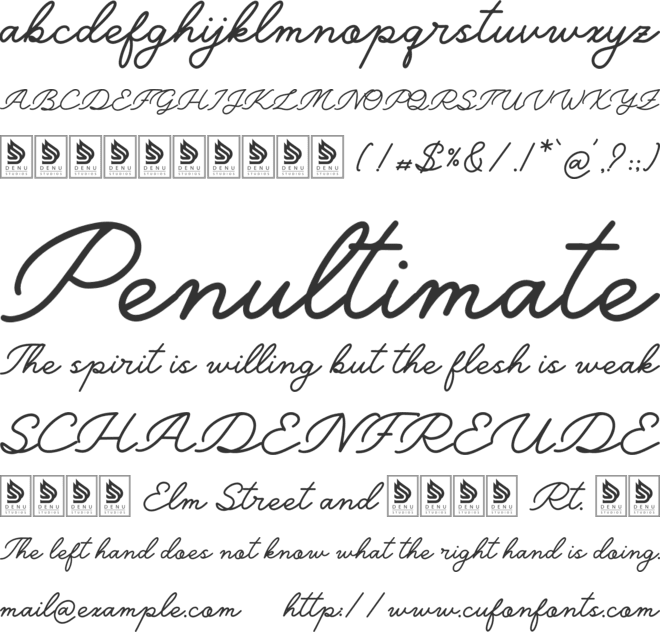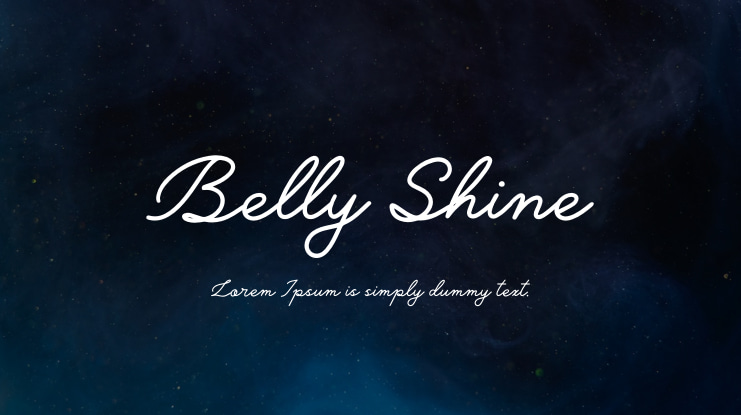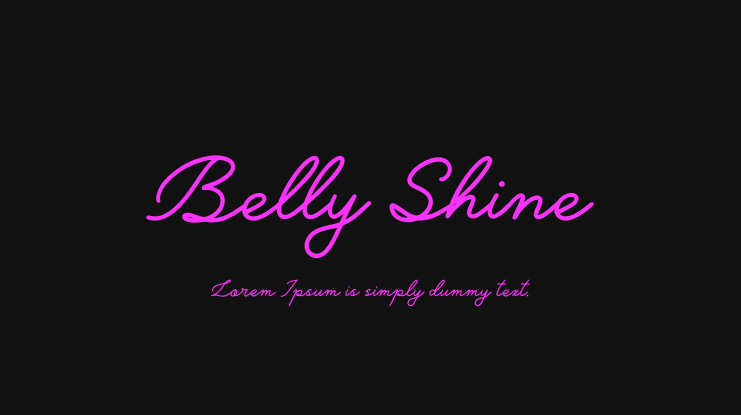
Belly Shine Font
Belly Shine | Handwritten Script Font is suitable for any projects such as:
• Logos
• Branding projects
• Homeware designs
• Product packaging
• Mugs
• Quotes
• Posters
• Shopping bags
• T-shirts
• Book covers
• Name cards
• Invitation cards
• Greeting cards
• Labels
• Photography
• Watermarks
• Special events
• And all your other lovely projects that need a Handwritten Script Font taste.
Belly Shine font preview